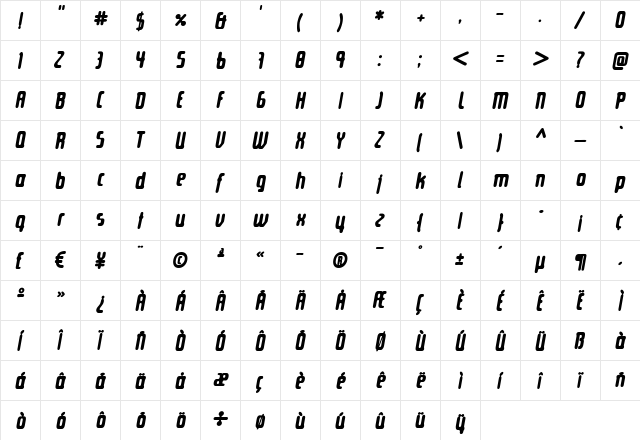
Ultranova Bold Italic
Design Context for Ultranova Typeface
Ultranova offers clean, dependable letterforms without strong stylistic allegiance, making it a practical choice for designers who need flexibility. The dynamic lean of this cut emphasises speed and emphasis in any layout. The heavy weight commands attention and anchors typographic hierarchies.
Pro Tip: Use Ultranova for emphasis, pull quotes, and subheadings where its slanted energy can add rhythm to the layout.